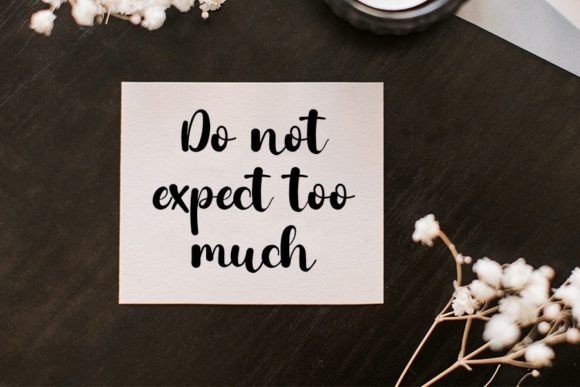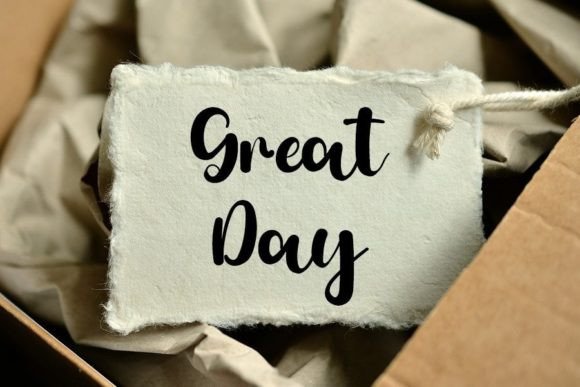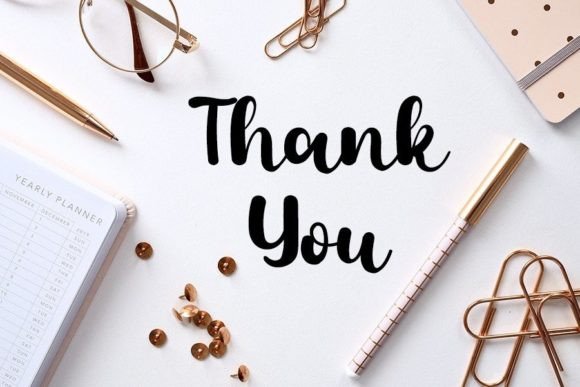
Backstage Font
About Backstage Font
Backstage is not just a font; it’s a masterpiece of elegance and beauty, meticulously crafted with a touch of sophistication. This neat and beautiful handwritten font exudes charm and grace, making it a perfect choice for a wide array of creative projects. Its distinct and timeless style captures attention and leaves a lasting impression, adding a touch of refinement to your designs.
Imagine Backstage gracing an invitation for an upscale event. Its elegant touch and neat characters create a sense of luxury and exclusivity, setting the perfect tone for a sophisticated affair. The font’s timeless style transforms the invitation into a work of art, reflecting the host’s attention to detail and impeccable taste. Backstage turns ordinary invitations into extraordinary keepsakes, leaving a lasting impression on every recipient.
In branding and logo design, Backstage adds a touch of class. Picture it in a high-end fashion brand’s logo or a premium product packaging. Its neat and beautiful handwritten style exudes sophistication, making the brand memorable and appealing to discerning customers. Backstage’s elegant aura ensures that the brand stands out, leaving a lasting impression on clients and creating a sense of trust and admiration.
For creative projects, Backstage’s distinct style adds a layer of elegance. Whether you’re designing a magazine layout, a poster for a cultural event, or a menu for a fine dining restaurant, this font elevates the overall aesthetic, making the content visually striking and captivating. Backstage’s versatility allows it to adapt seamlessly to various design contexts, enhancing the overall presentation and leaving a lasting impact on viewers.
Moreover, Backstage seamlessly integrates into digital designs, social media graphics, and online advertisements. Its elegant and neat characters create a sense of professionalism, making the content visually appealing and engaging. Whether you’re creating website headers, social media posts, or digital newsletters, Backstage enhances the user experience, leaving a positive and memorable impression on visitors and readers.
In summary, Backstage is more than just a font; it’s a statement of elegance and refinement. Its neat and beautiful handwritten style, described by an elegant touch, transforms your favorite projects into spectacular designs. So, let Backstage be the secret ingredient that adds a touch of sophistication to your creative endeavors, capturing the attention and admiration of anyone who experiences them.